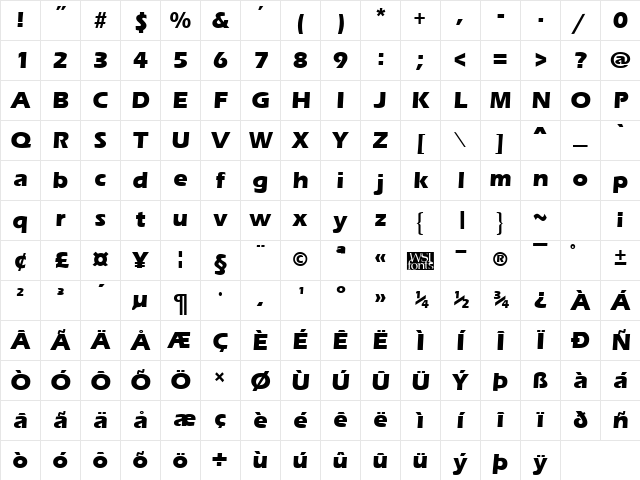
ErgoeMildExtrabold Regular
Design Context for ErgoeMildExtrabold
ErgoeMildExtrabold is a composed and adaptable typeface that performs quietly and consistently across a wide range of design contexts. Its bold stroke weight gives it real presence on the page.
Pro Tip: Use ErgoeMildExtrabold in both headline and body roles to test its range before committing to a single application.